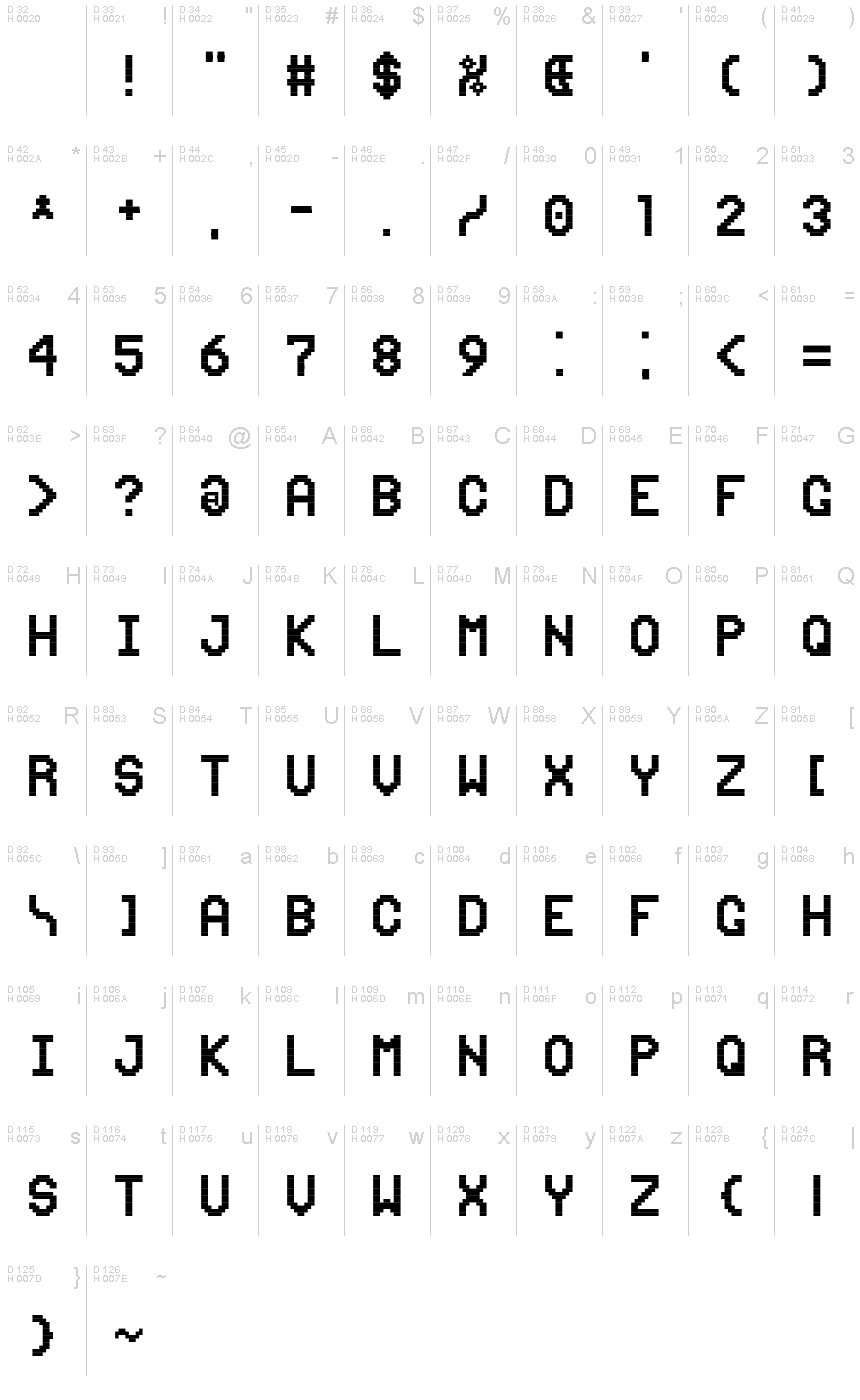
New_Browserlink
New Browserlink, designed by the talented Xavie, is a captivating pixelated font with a bold weight. This nostalgic bitmap typeface evokes a sense of adventure and playfulness. Its unique design makes it ideal for retro-inspired projects, such as video game titles and vintage-themed websites. The boldness of New Browserlink ensures maximum visibility, making it perfect for eye-catching logos or attention-grabbing headlines in posters and advertisements. Whether you're looking to add a touch of 8-bit charm or want to stand out with a distinct typographic style, New Browserlink is your go-to font choice.